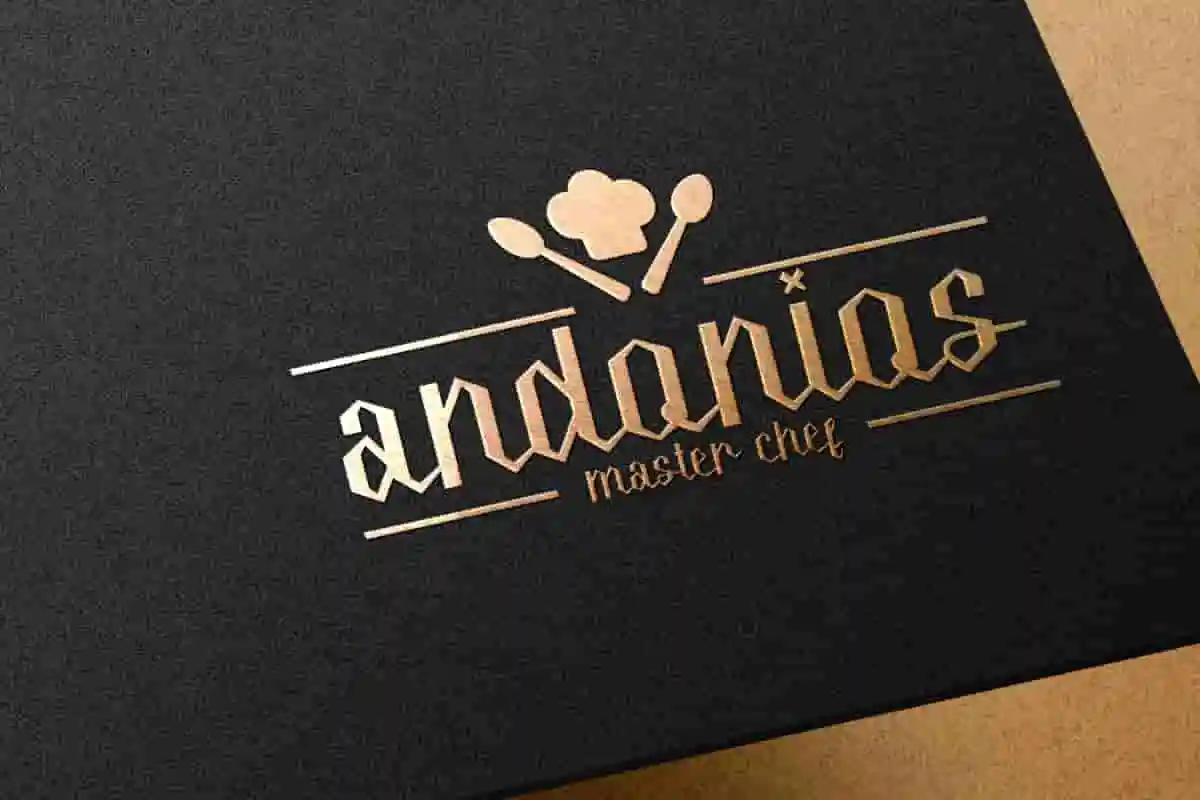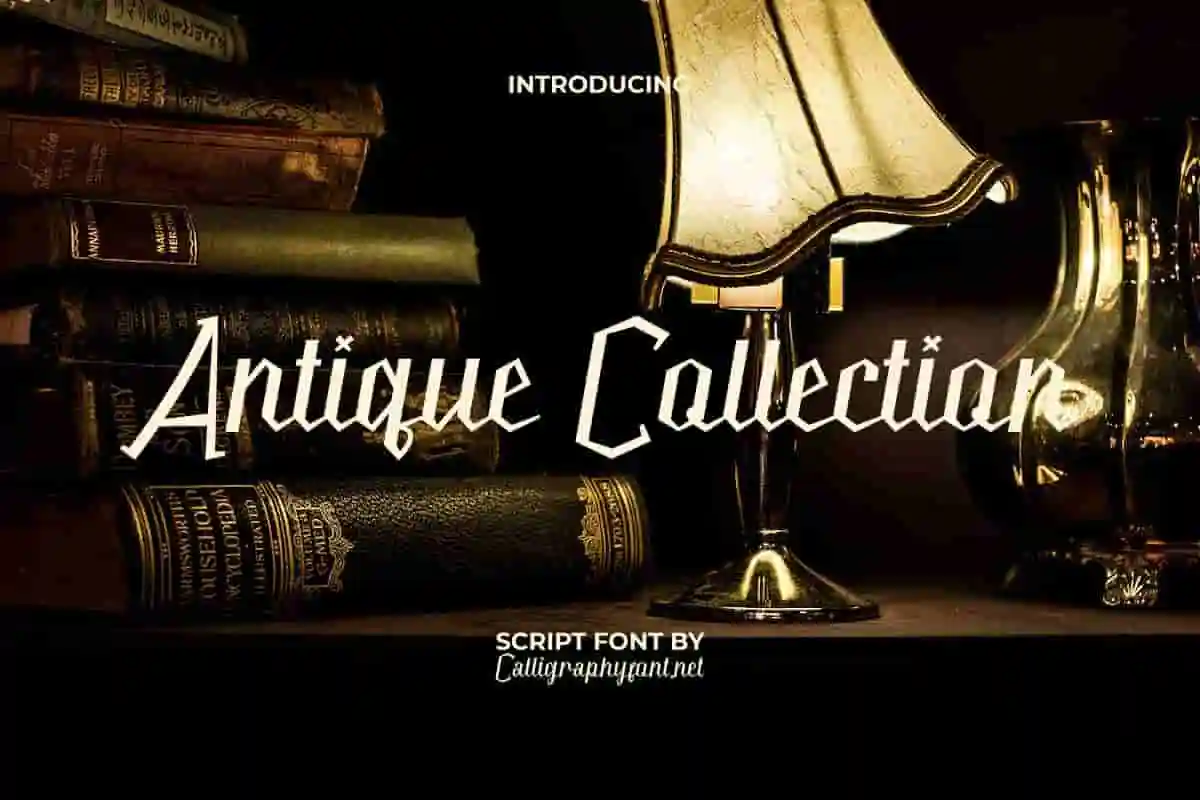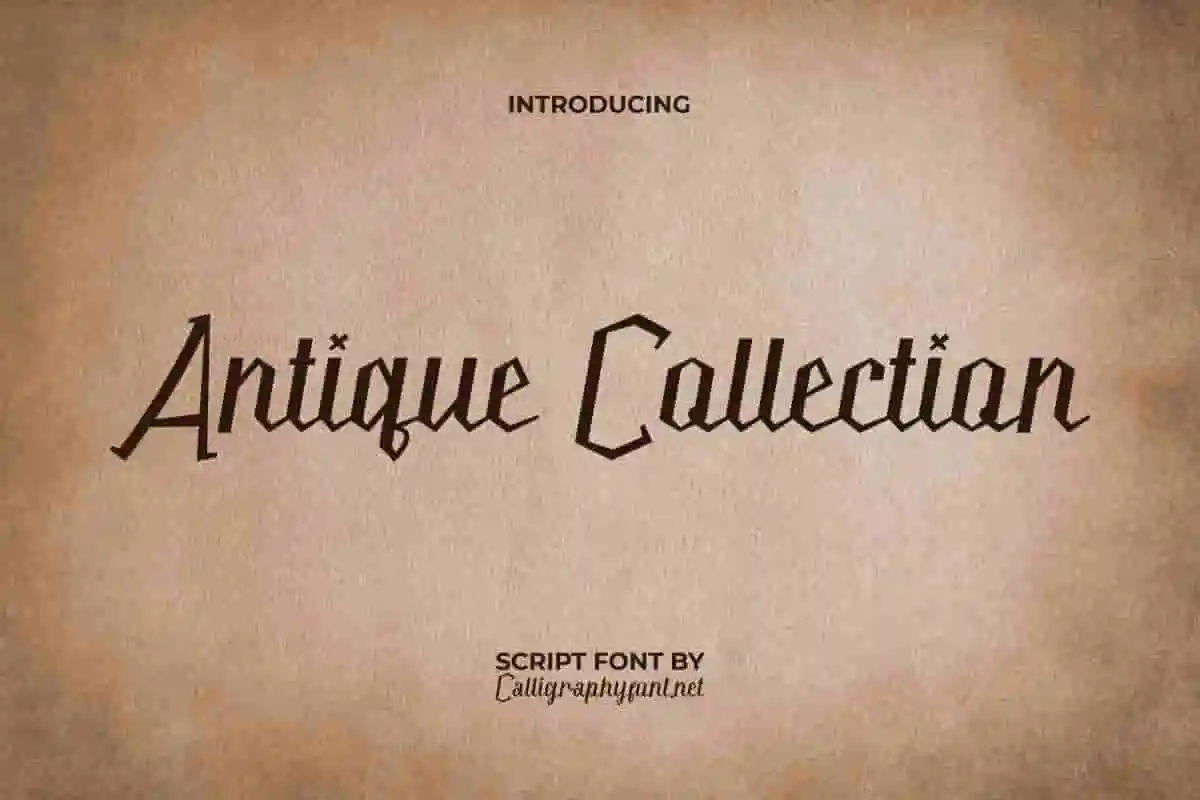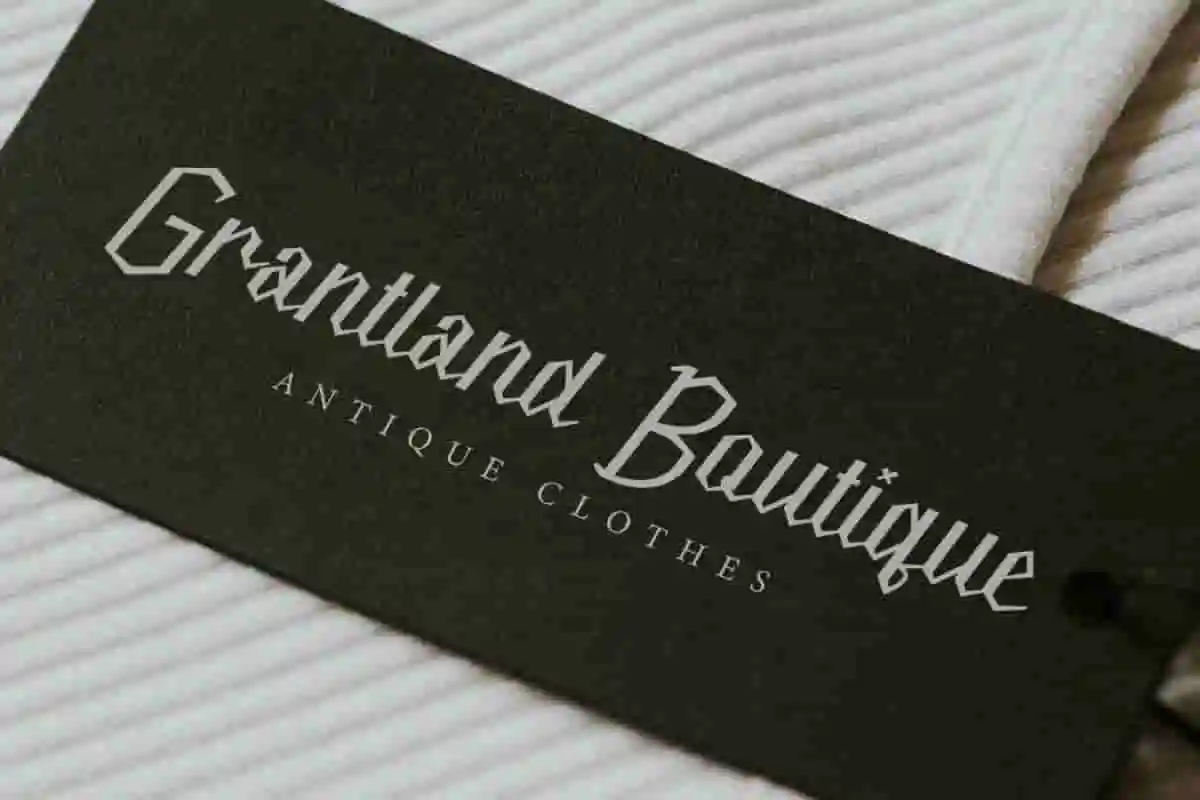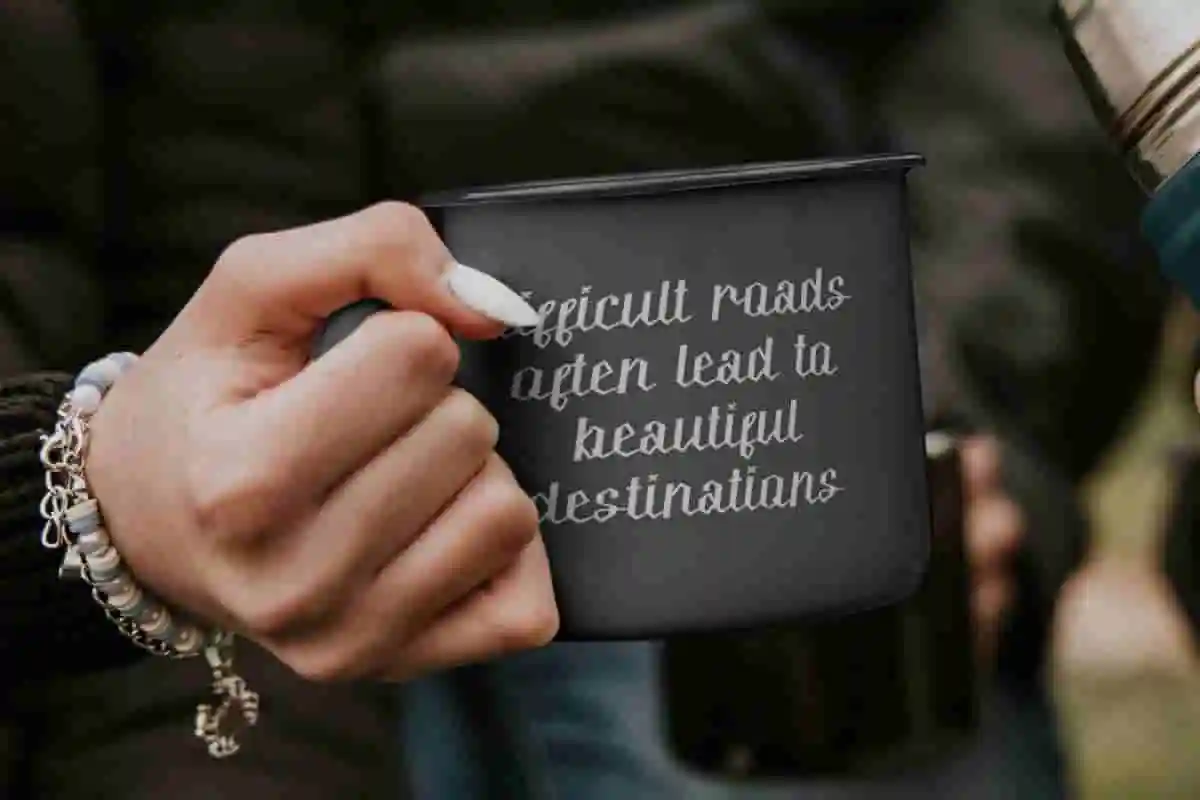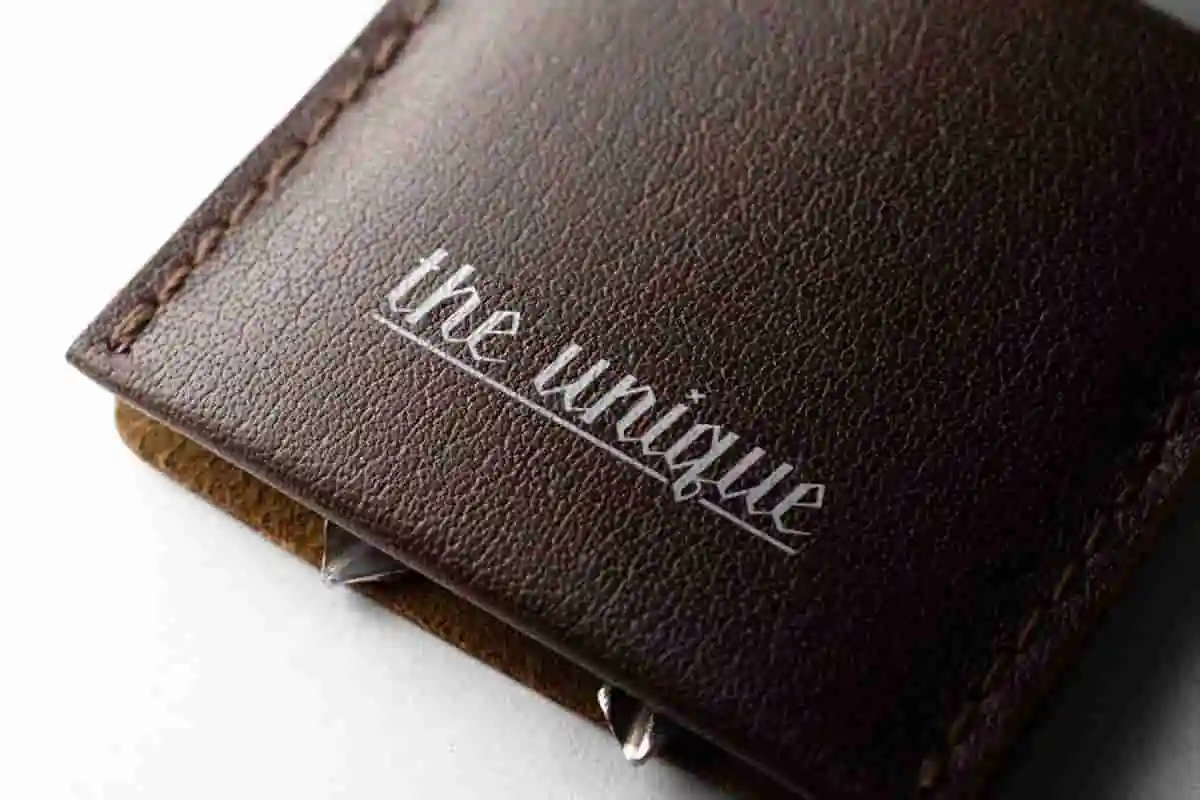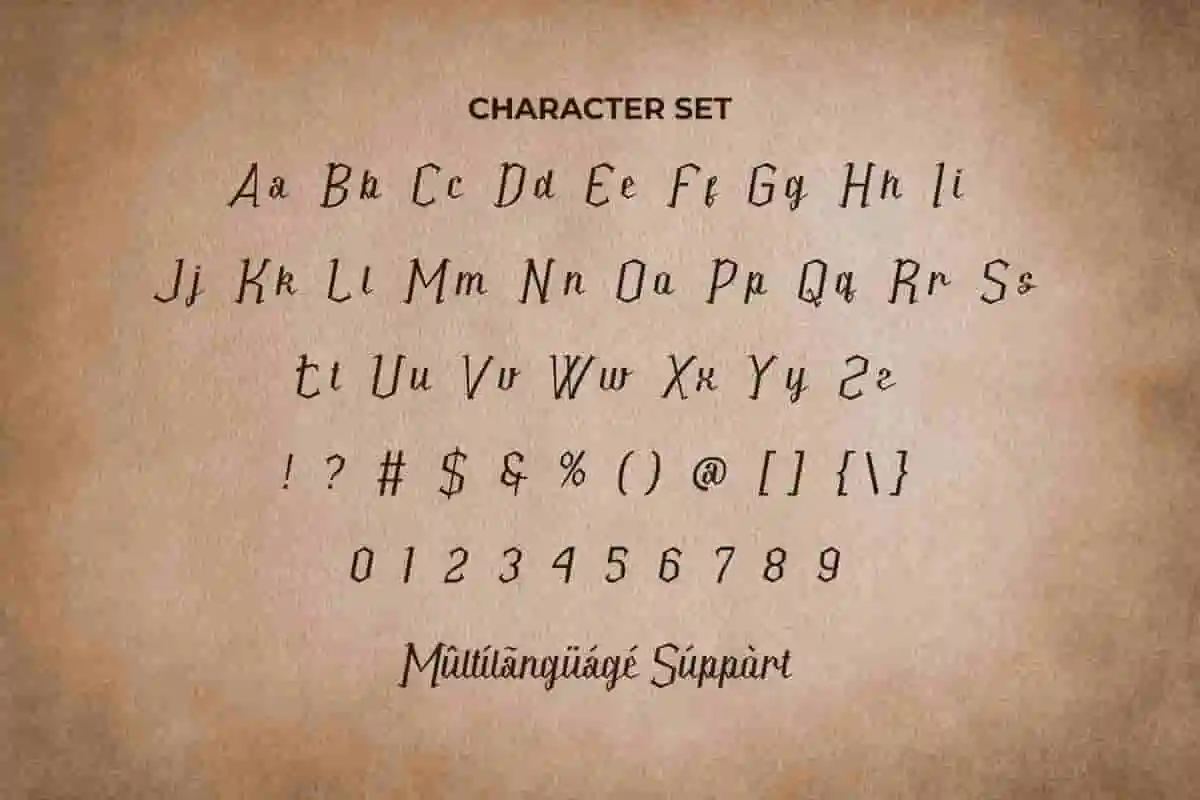
Antique Collection
Antique Collection Handwriting Font
Antique Collection Font is a precious vintage handwritten script font. It will be great for antique store, artist, brochure, coffee shop, fashion designer, headers, label, musician, sticker, etc.
Antique Collection Font is a vintage script font with a unique appearance, created by Calligraphy Fonts. The font has letters that form a hexagon and each line is sharp making this handwriting stand out with an antique feel and will be perfect for your creative projects, such as brand logo, catalog, cover, embossed design, header, invitation, label, packaging design, quote, screen print, stationery, sticker, title, website, and many  more.
Step into a world of vintage charm with the Antique Collection Handwriting Font. Inspired by classic handwritten scripts from the past, this font brings timeless elegance and sophistication to your creative projects. Whether you’re designing wedding invitations, luxury branding, vintage packaging, or editorial layouts, Antique Collection offers beautifully crafted strokes that capture the grace and refinement of traditional handwriting.
Discover the beauty of vintage handwriting with the Antique Collection Handwriting Font. This elegant script font channels the timeless artistry of old-fashioned penmanship, perfect for adding a touch of sophistication and nostalgia to your creative work. Whether you’re crafting wedding invitations, luxury branding, boutique packaging, or editorial designs, Antique Collection delivers graceful, flowing strokes that evoke an era of refinement and class.
Step back in time with the Antique Collection Handwriting Font, a beautifully crafted script font that channels the sophistication of vintage penmanship. Perfect for weddings, luxury branding, and classic design projects, this font brings elegance and refinement to every letter. With smooth, flowing strokes and delicate flourishes, Antique Collection adds a personal, handcrafted feel that enhances invitations, logos, packaging, and more.
• Classic Handwritten Style
Antique Collection Font is a timeless handwriting that’s a great choice for use as the main text or paired with other font types. This font will stand out for any project, including: accessories, authors, café, clothing brand, culinary, fashion designer, film, furniture, handicraft, homeware, interior design, library, museum, musician, photography, restaurant, writer, etc. Carefully crafted to create perfection in writing and add high value to the font.
Antique Collection Font comes with a full set of Uppercase and Lowercase Basic Characters, Number, a large range of Punctuation and Symbol. Also supported with multilingual characters and ready to use both on Windows machine or Mac with simple installations. It’s tested to work well in the Adobe Apps (Illustrator, Adobe InDesign, Adobe Photoshop) CorelDraw, and others. PUA Encode Characters means you can access all the glyphs and other additional characters easily – Fully accessible without additional design software.